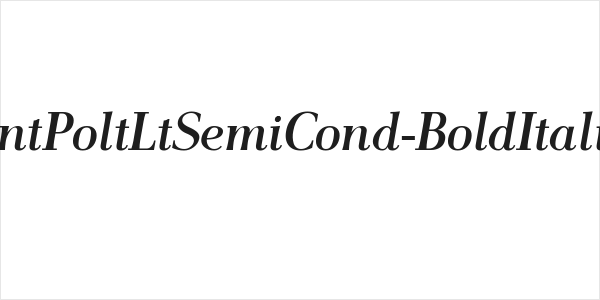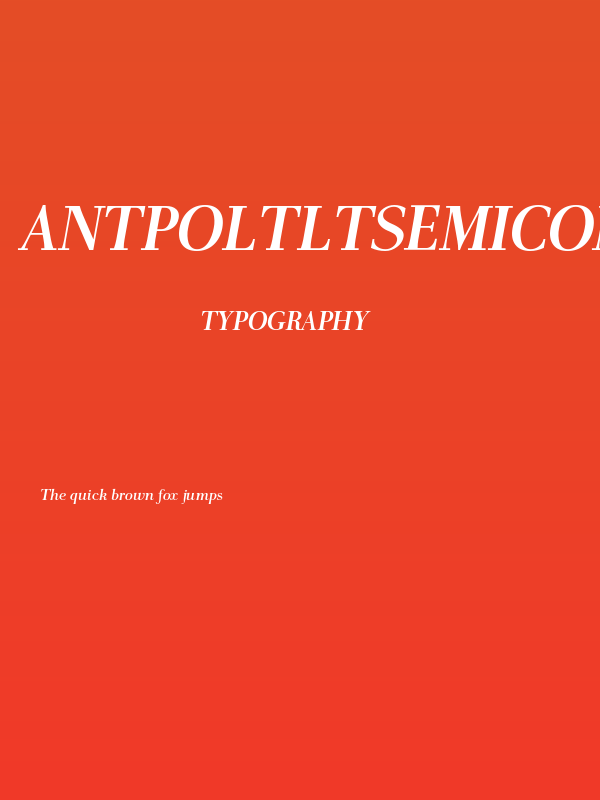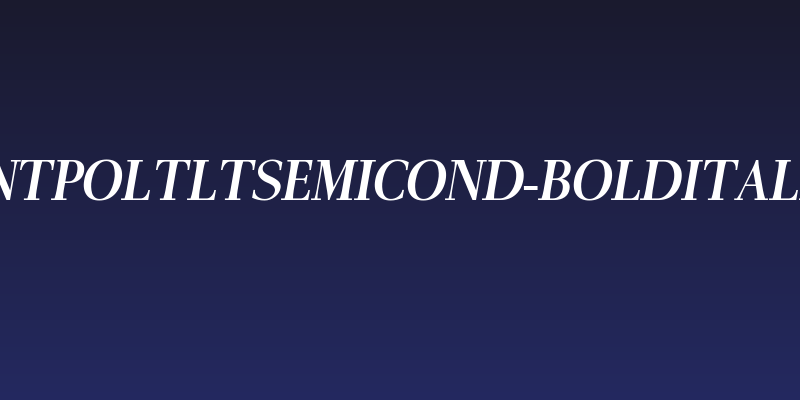
AntPoltLtSemiCond-BoldItalic Font
AntPoltLtSemiCond-BoldItalic Description
This font features a sophisticated and elegant design, characterized by its semi-condensed letterforms and bold italic style. The uppercase letters exhibit a strong presence with slightly elongated serifs, while the lowercase letters maintain a smooth and flowing appearance. The numerals are well-proportioned, ensuring readability and balance. Special characters are crafted with attention to detail, enhancing the overall aesthetic. The font's contrast is moderate, with noticeable differences between thick and thin strokes, adding to its dynamic and stylish look.